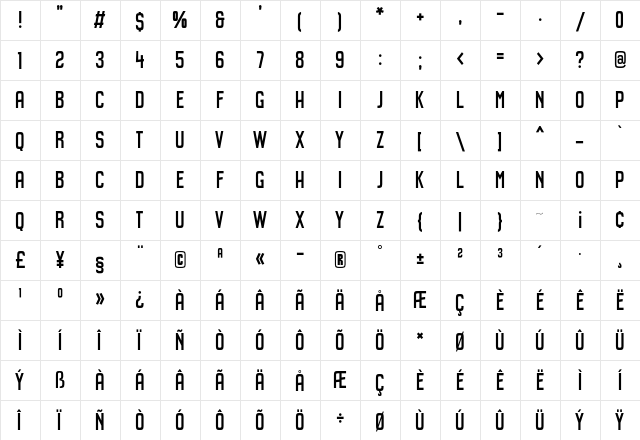
Kenga Kaya Regular
| Foundry | Audry Kitoko Makelele |
| Designer | Audry Kitoko Makelele |
Design Context for Kenga Kaya Typeface
Kenga Kaya takes a measured approach to typography — its balanced proportions and neutral character make it a reliable workhorse for both digital and print work.